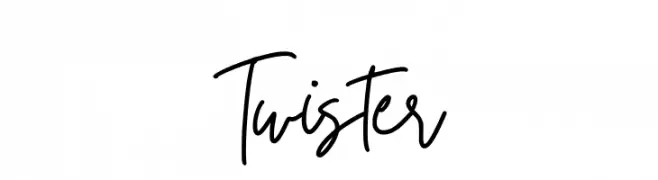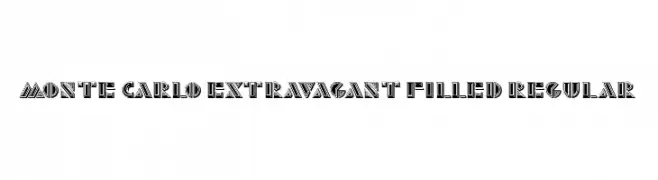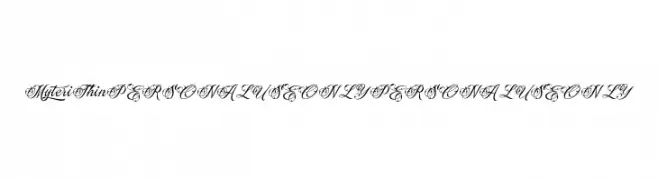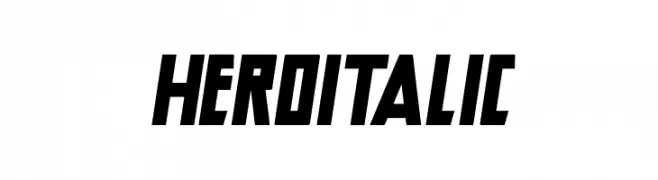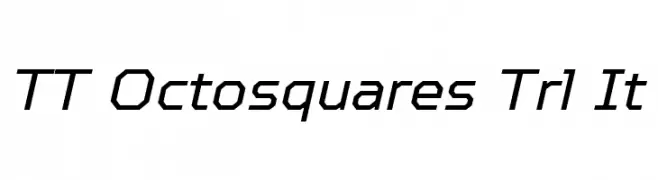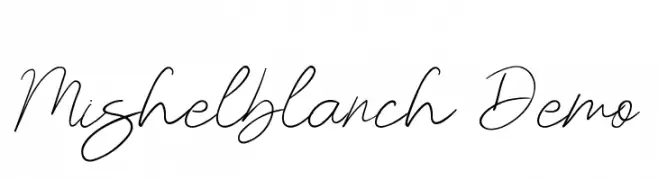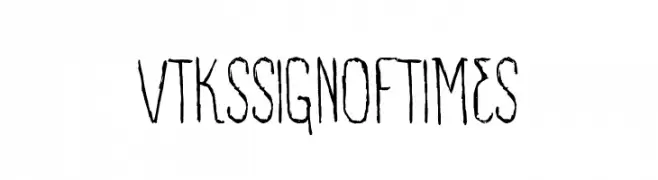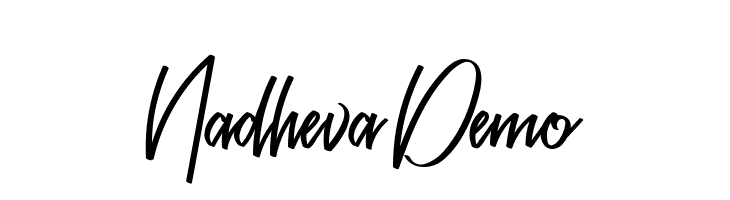
A lively and fluid handwritten font with a dynamic cursive style.
A bold, extravagant font with geometric shapes and intricate patterns.
An ornate and elegant script font with intricate swirls and flourishes.
Bold, italic, and geometric font with a dynamic and energetic style.
A modern, angular font with a geometric and slightly italicized design.
Elegant handwritten script font.
A decorative display font with a twinkling dot pattern.
A bold, outlined font with rounded, playful characters.